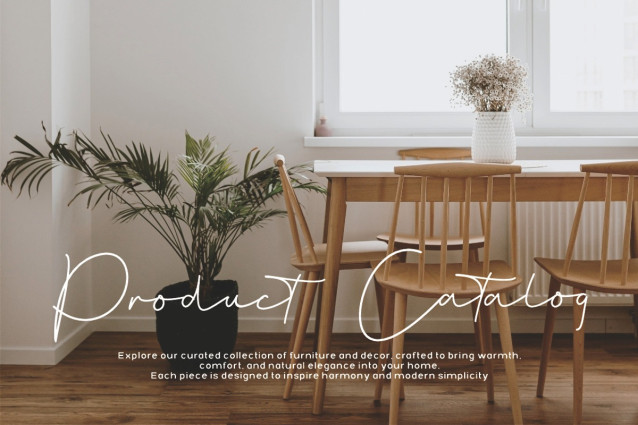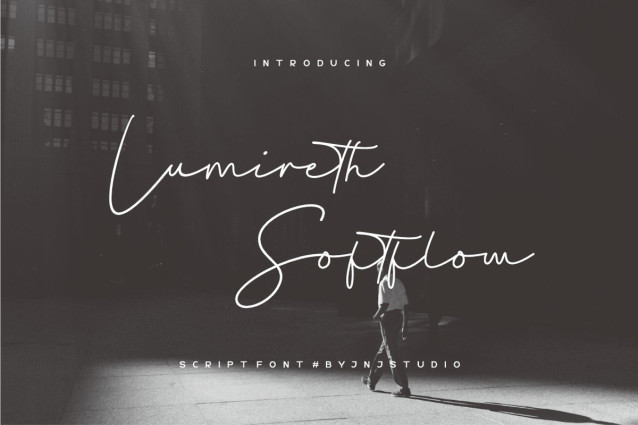
Lumireth Softflow Handwriting Font
Lumireth Softflow Handwriting Font is a minimalist script font that blends gentle elegance with modern simplicity. Designed with smooth, flowing strokes and balanced curves, this font delivers a soft handwritten feel without sacrificing clarity and readability. Each letter is crafted to connect naturally, creating a harmonious rhythm that feels light, graceful, and refined.
Perfect for branding, logos, signatures, social media graphics, invitations, and lifestyle designs, Lumireth Softflow adds a warm and sophisticated touch to any visual composition. Its clean yet expressive character makes it ideal for creators who seek a modern script font with a subtle, timeless charm.